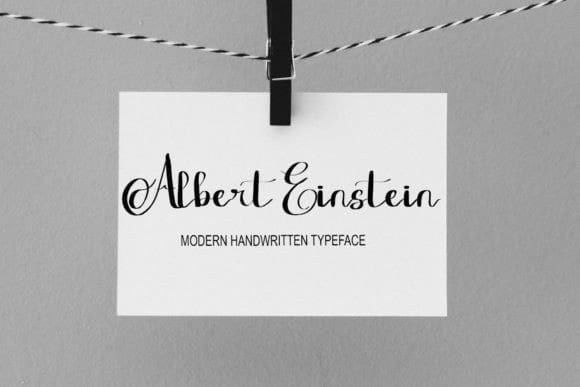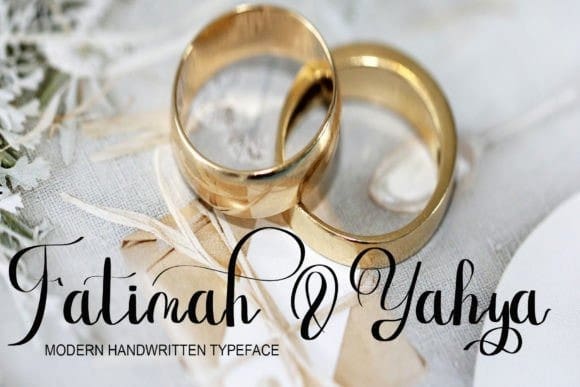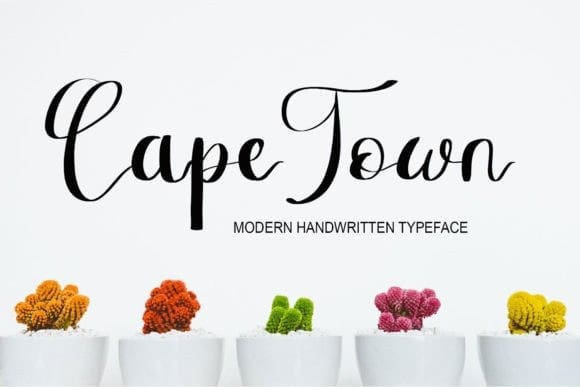
Cape Town Font
Cape Town Font is a friendly and cute handwritten script font. Whether you’re using it for crafts, digital design, presentations, or making greeting cards, this font has the potential to become your favorite go-to font, no matter the occasion!